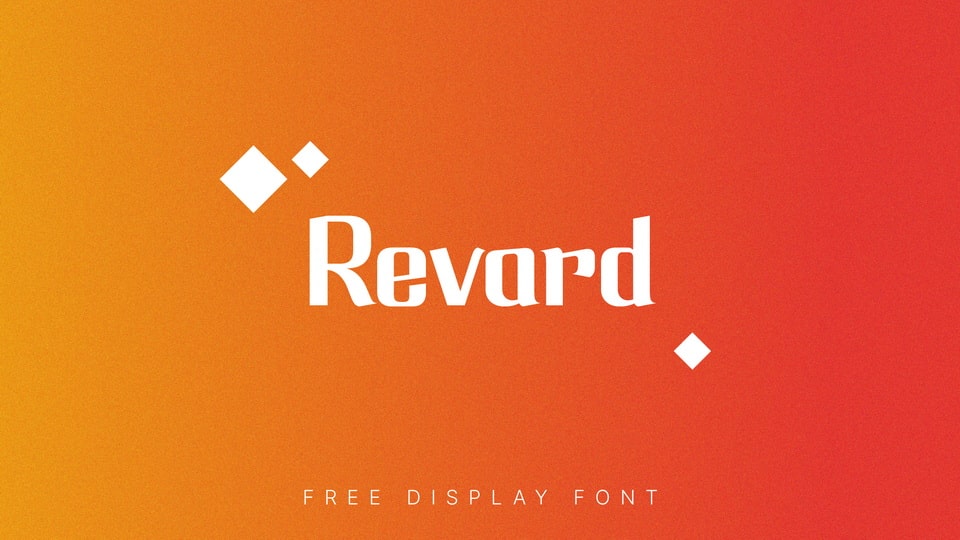
Download Revard font, a display typeface that is perfect for headlines, logos and product designs. The use of this font is limited only by your imagination, as it will find applications far beyond the previously listed areas.
Designer: Vladimir Klenov